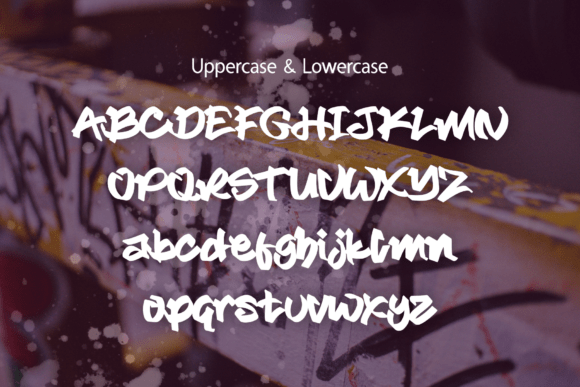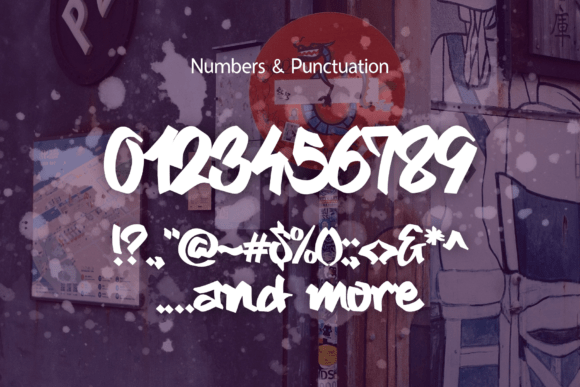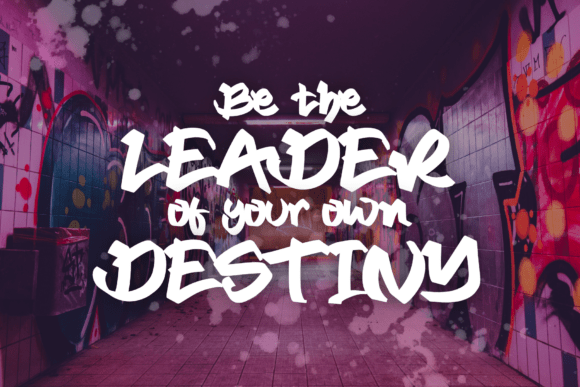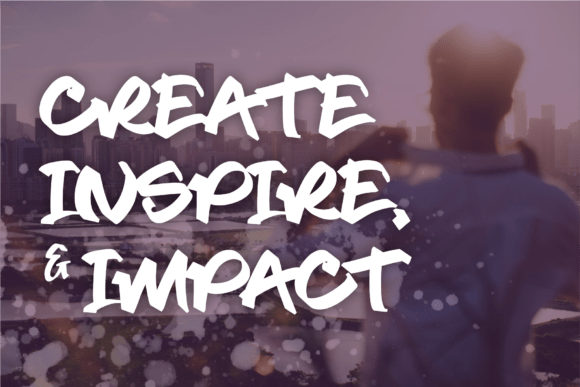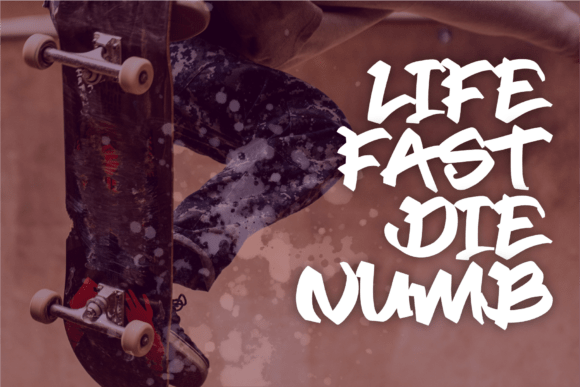
Introduction to Dravikz Font
You’re browsing through a music festival’s social media feed, and you see a bold, eye-catching poster that immediately grabs your attention. The font is a key element in that design, and it’s the Dravikz Font that gives it that extra oomph. Dravikz Font is a bold hand-drawn graffiti-style font that embodies the energy and rebellion of the urban street scene.
As a designer, you’re always on the lookout for unique design resources that can elevate your creative project. The Dravikz Font is a valuable addition to your toolkit, perfect for streetwear branding, music posters, extreme sports visuals, or any project that celebrates street culture. With its high-quality design and transparent background, you can easily integrate it into your designs and give them that street-smart edge.
Key Features of Dravikz Font
- High-quality design resource ideal for creative projects, offering a unique aesthetic.
- Dravikz Font features a transparent background, allowing for seamless integration into various design elements.
- Supports multiple languages, making it a versatile design resource for global creative projects.
- The font’s modern and sleek design makes it perfect for use in logos, branding materials, and digital signage.
Honest Review: Dravikz Font
I recently came across the Dravikz Font and was excited to give it a try for my latest design project. As a designer, I’m always on the lookout for high-quality fonts that can elevate my creative work.
- ✨ The font has a unique and modern design that’s perfect for contemporary projects.
- ✨ The transparent background allows for seamless integration with any design element.
One of the standout features of the Dravikz Font is its versatility. It’s available for free download, making it an excellent design resource for designers on a budget.
- ⚠️ The font may not be suitable for traditional or formal projects, as its modern design may come across as too bold.
- ⚠️ Some users may find the font too ornate, which can make it difficult to read in certain contexts.
Overall, I’m impressed with the Dravikz Font’s quality and versatility. While it may have some limitations, it’s an excellent choice for designers working on creative projects that require a modern and edgy look.
Common Use Cases for Dravikz Font
The Dravikz Font is suitable for a variety of creative projects, including business presentations, marketing materials, and social media graphics. Use the font to create eye-catching headings, titles, or body text that grabs the attention of your audience.